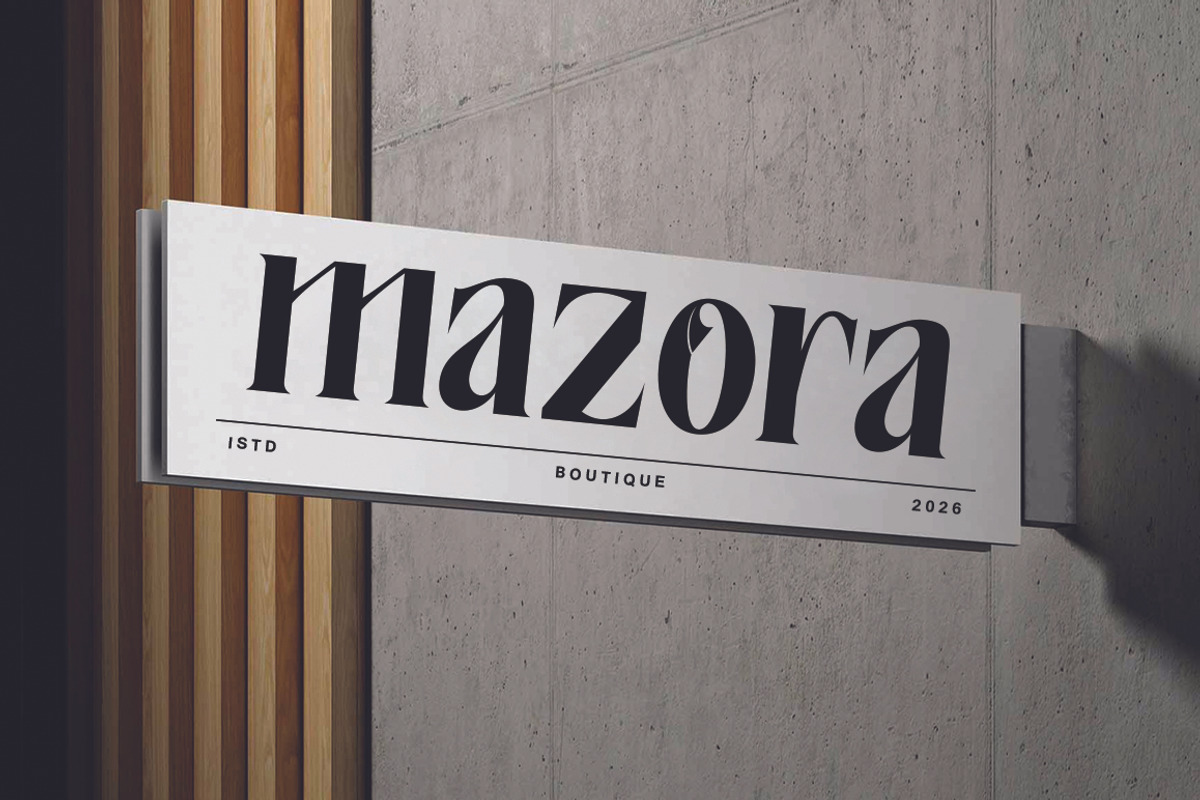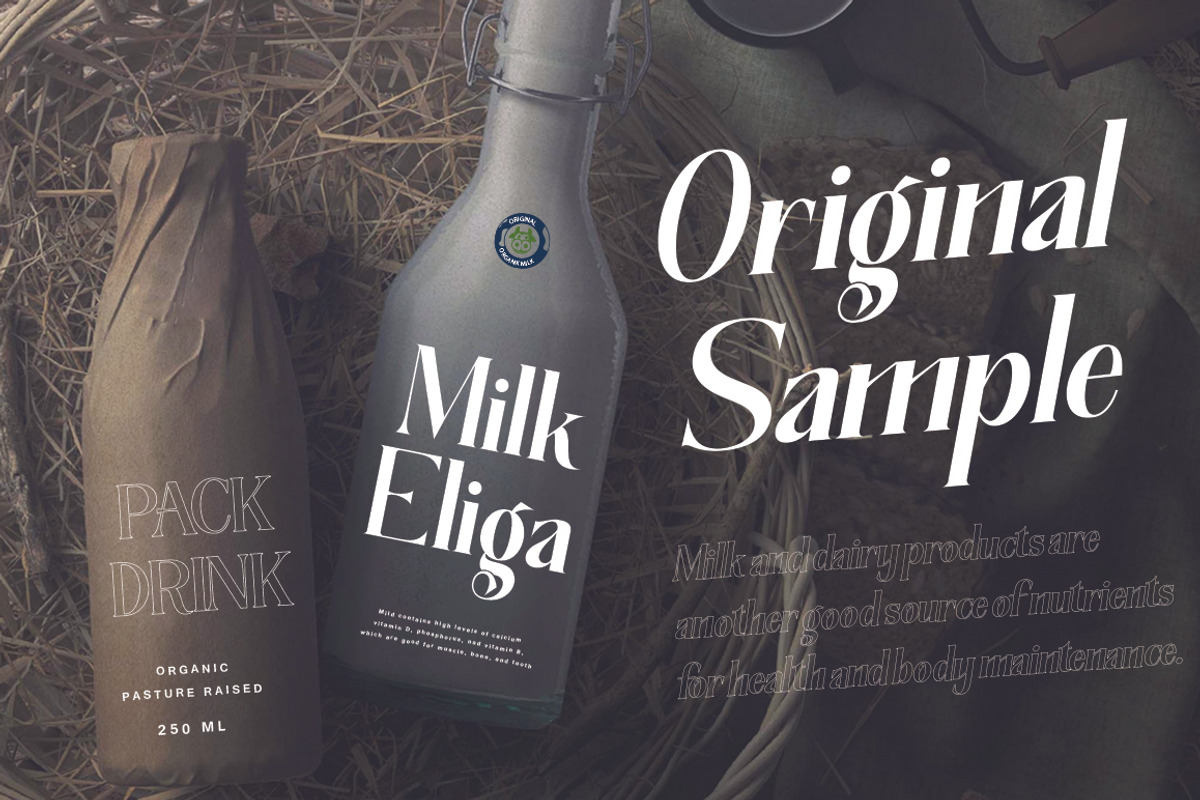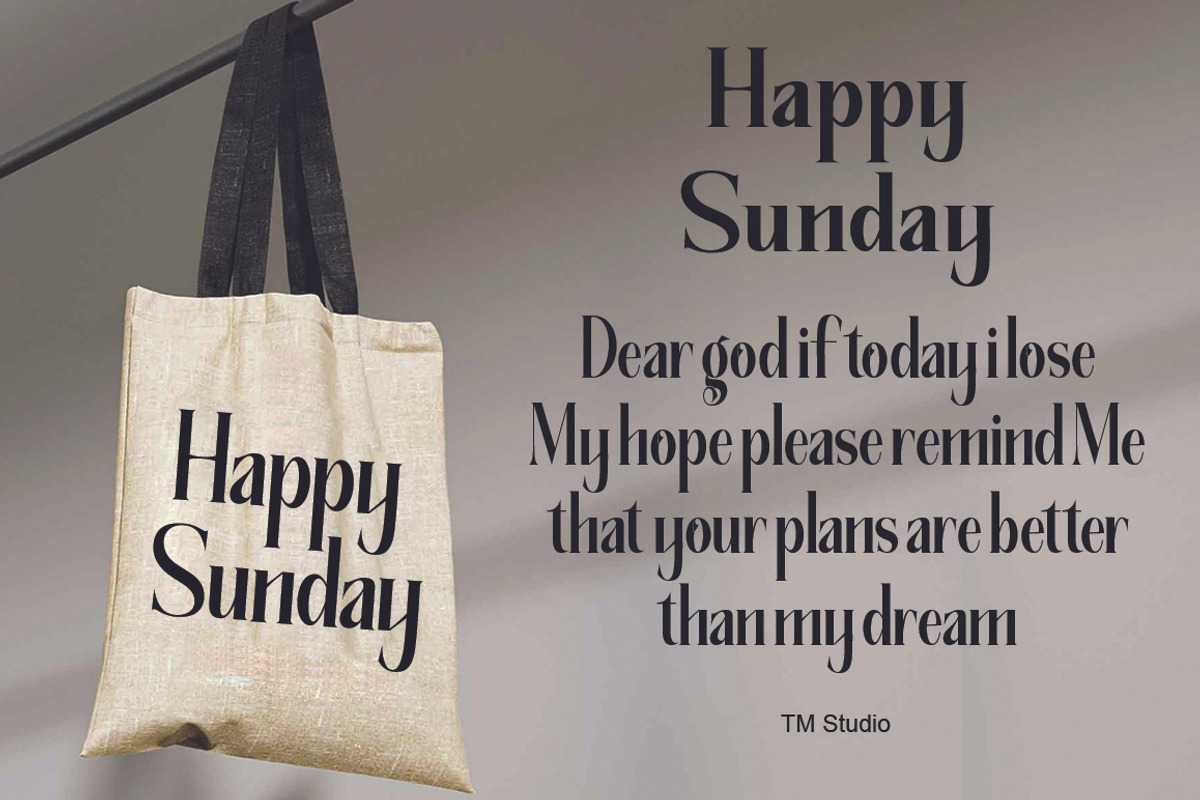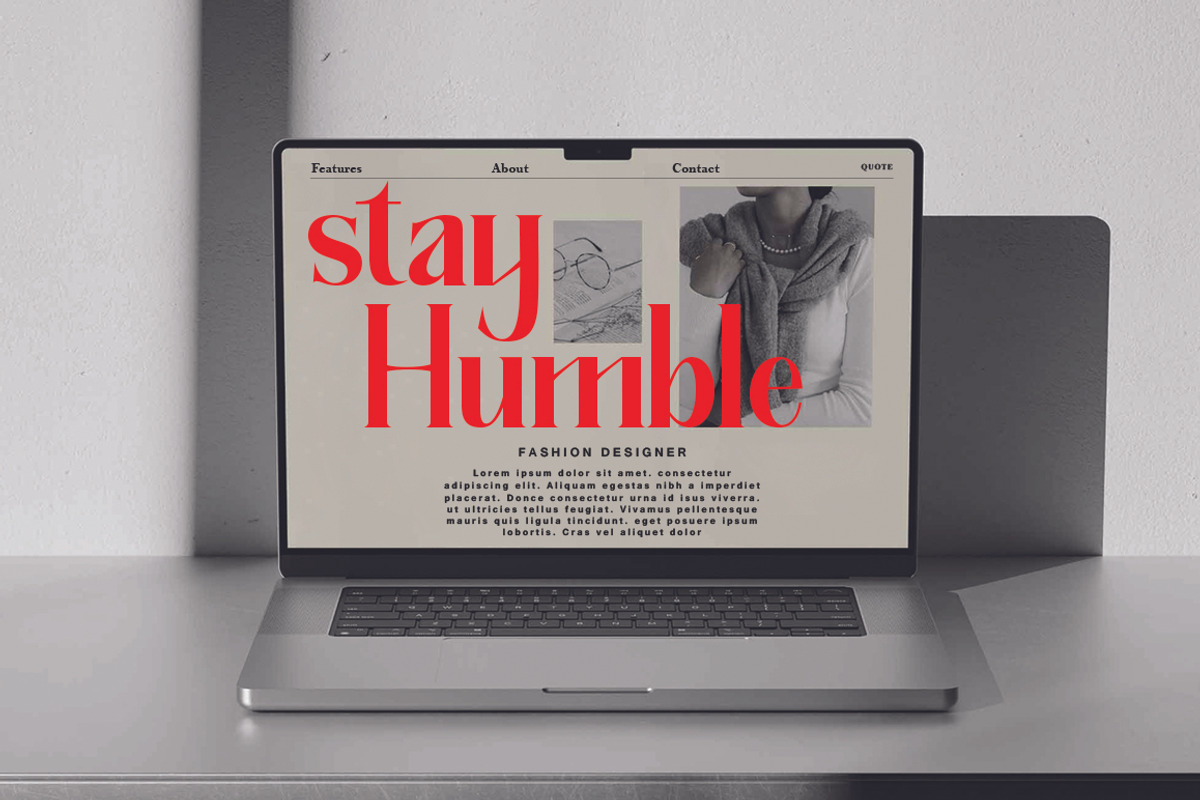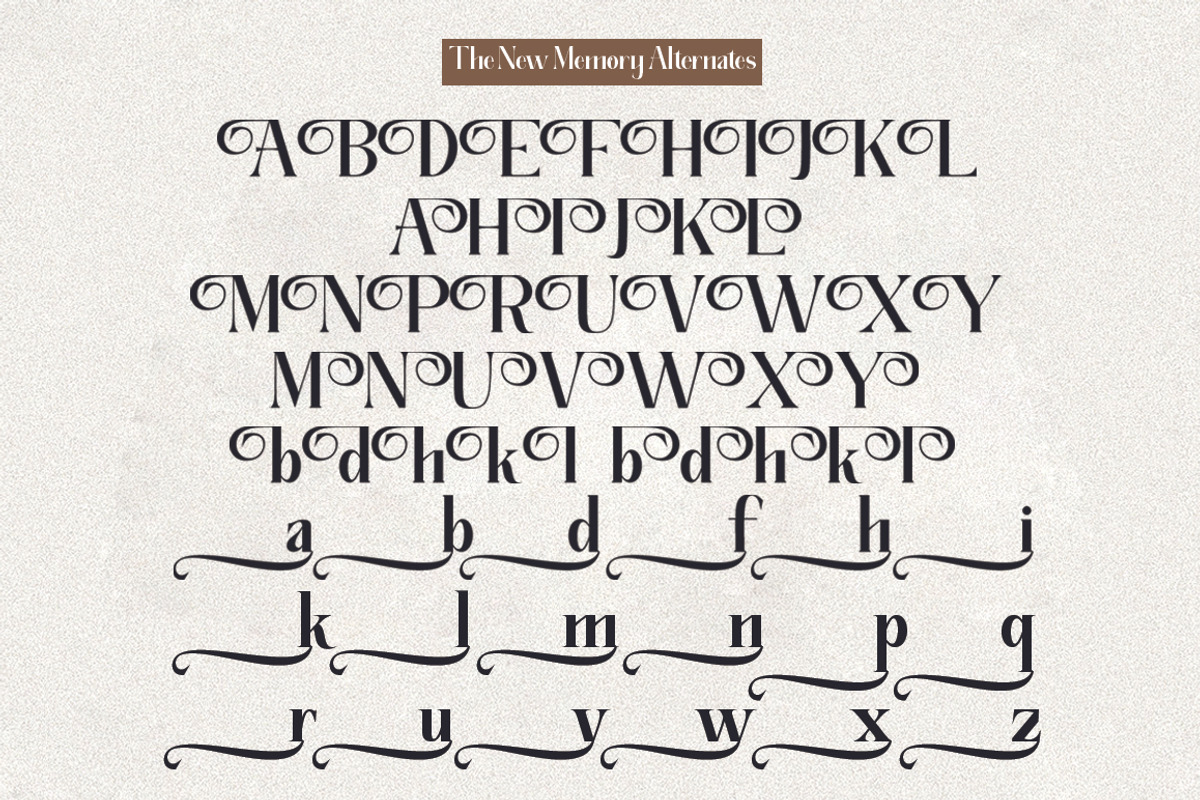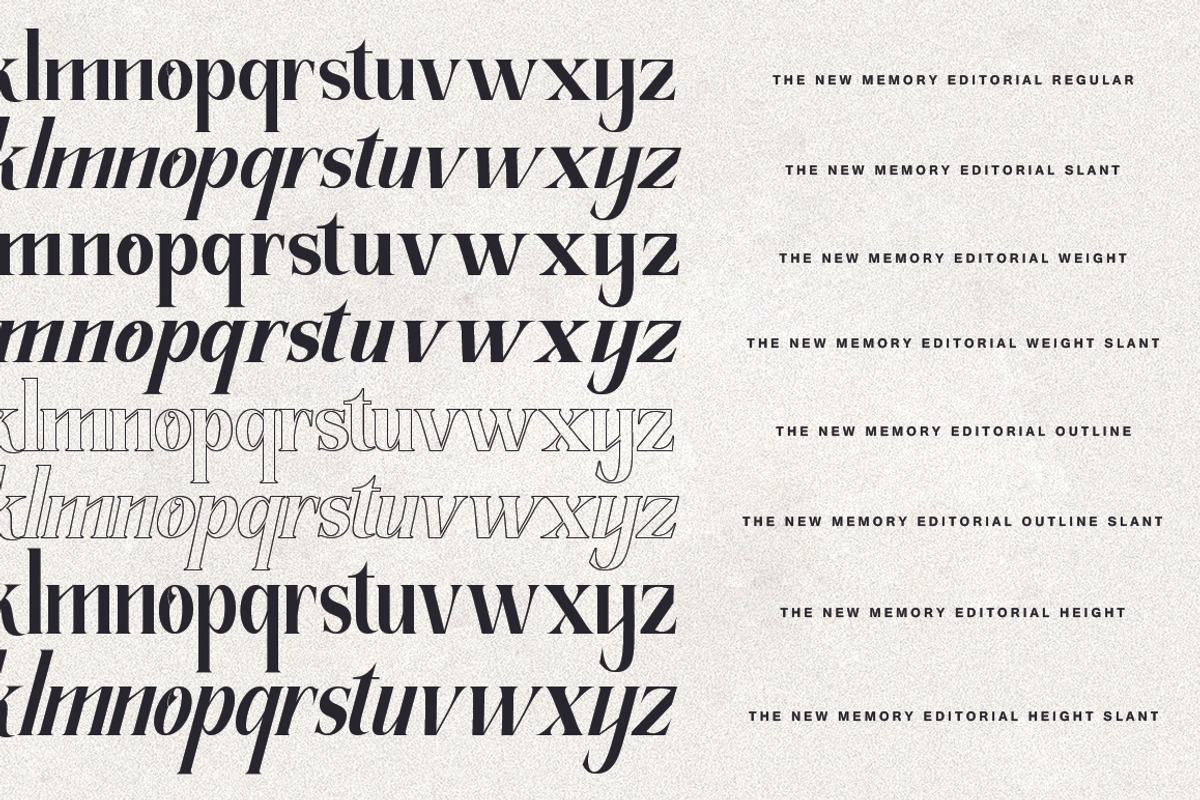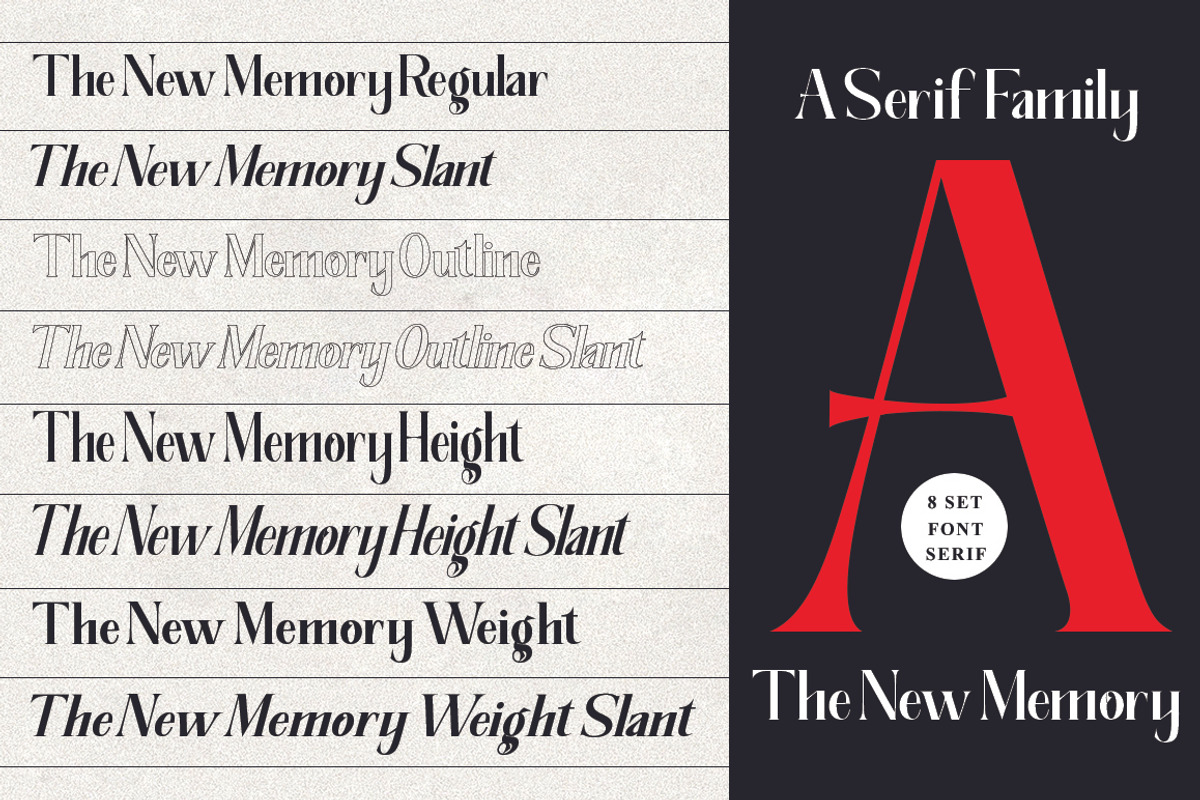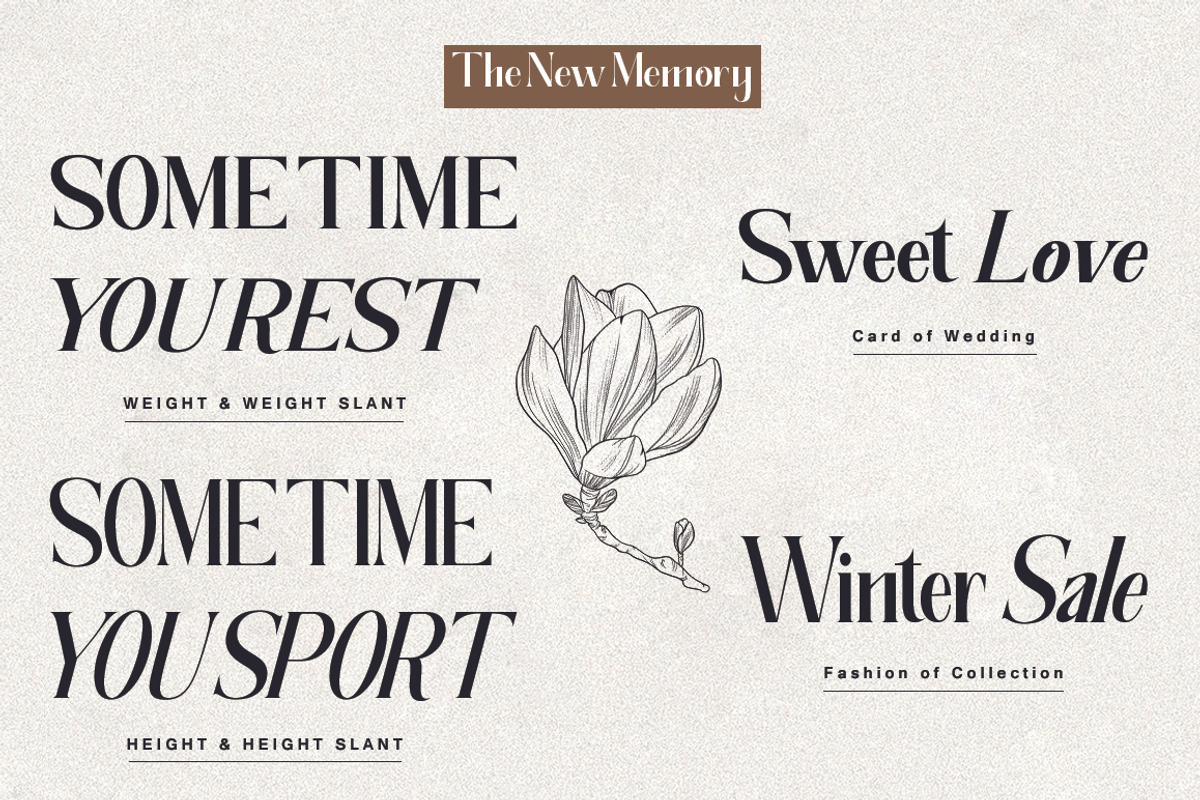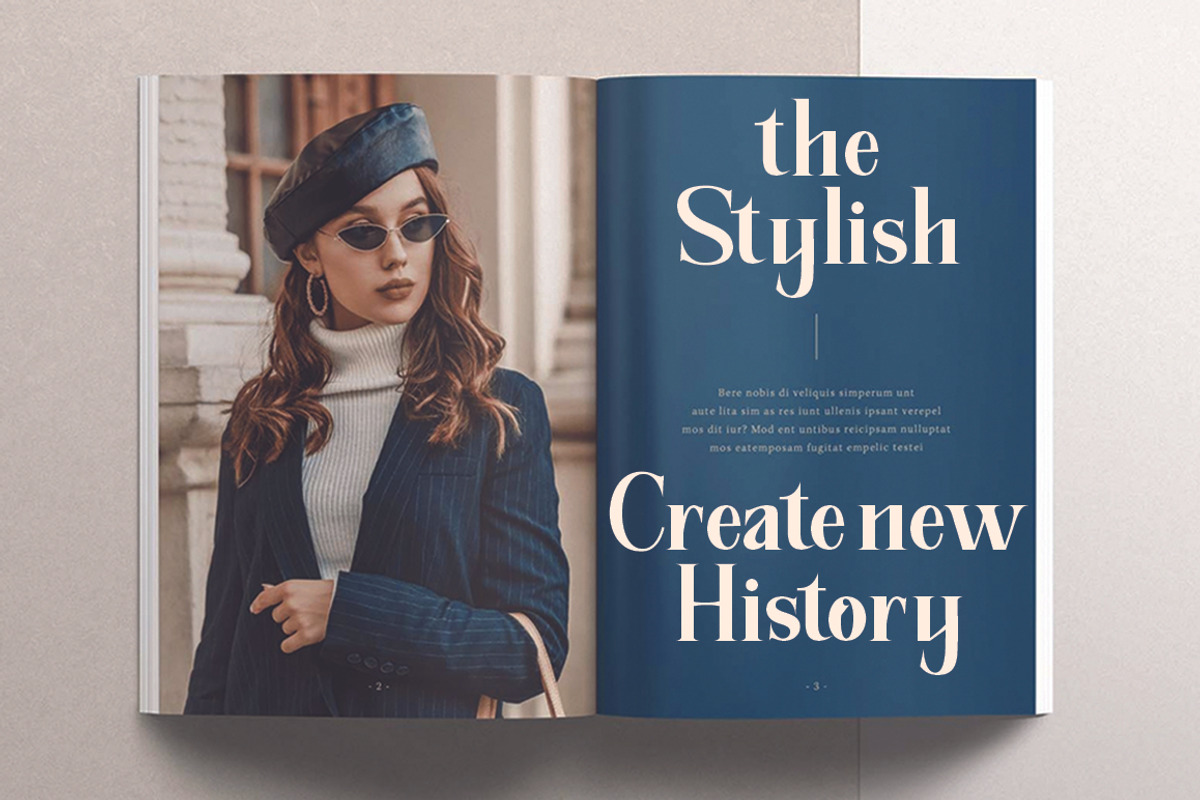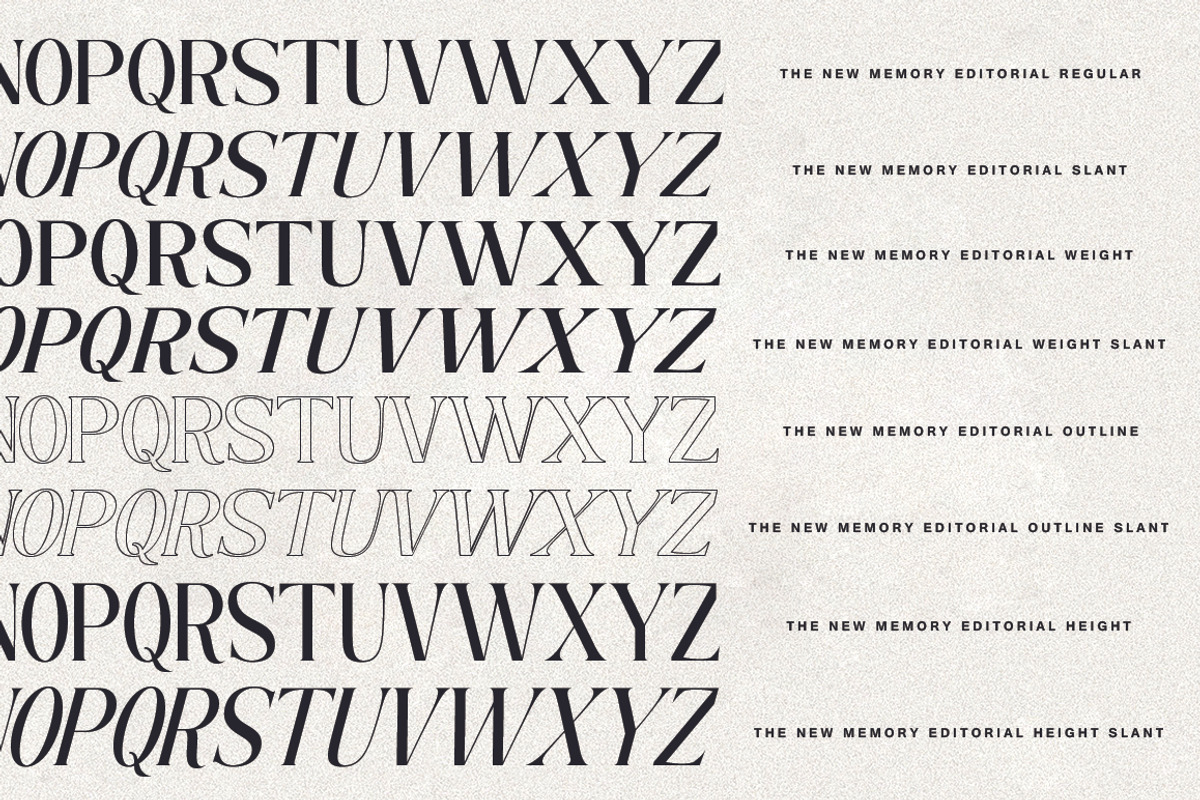
The New Memory
Meet The New Memory, a sophisticated serif typeface designed to elevate your projects with its classic elegance and modern versatility. The New Memory comes in eight styles: Regular, Slant, Outline, Outline Slant, Height Slant, Weight, and Weight Slant.
Perfect for branding, logos, editorial designs, and invitations, The New Memory offers clean lines and a timeless aesthetic.
OpenType Features: Kerning, Ligatures, Stylistic Sets
Character Set: Uppercase, numbers, punctuation, ligatures, multilingual support and alternates